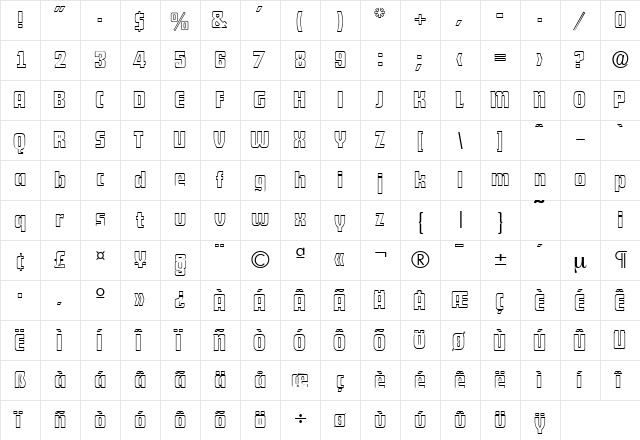
DekoDisplayOpen-Serial Regular
Design Context for DekoDisplayOpen-Serial Typeface
DekoDisplayOpen-Serial brings ornamental detail and strong personality to headlines and identities, where visual impact matters more than quiet functionality.
Font Pairing: Pair with a clean neutral sans-serif for body copy to let DekoDisplayOpen-Serial's character lead without overwhelming the composition.
Pro Tip: Treat DekoDisplayOpen-Serial as the centrepiece of your typographic hierarchy. One strong heading set in a decorative face can carry an entire layout.